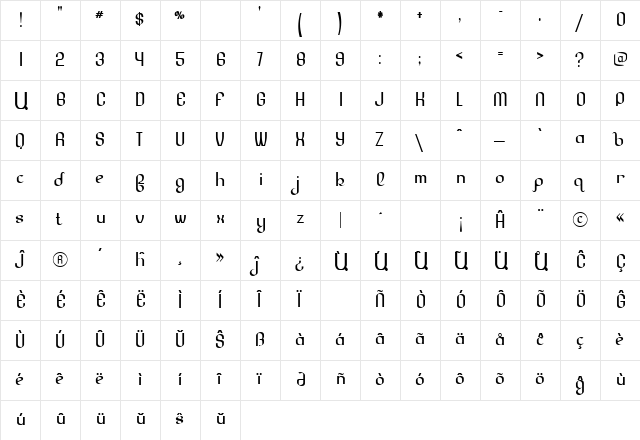
SenzorgaAnhok Regular Font Preview
SenzorgaAnhok Regular
Design Context for SenzorgaAnhok Typeface
SenzorgaAnhok is a composed and adaptable typeface that performs quietly and consistently across a wide range of design contexts.